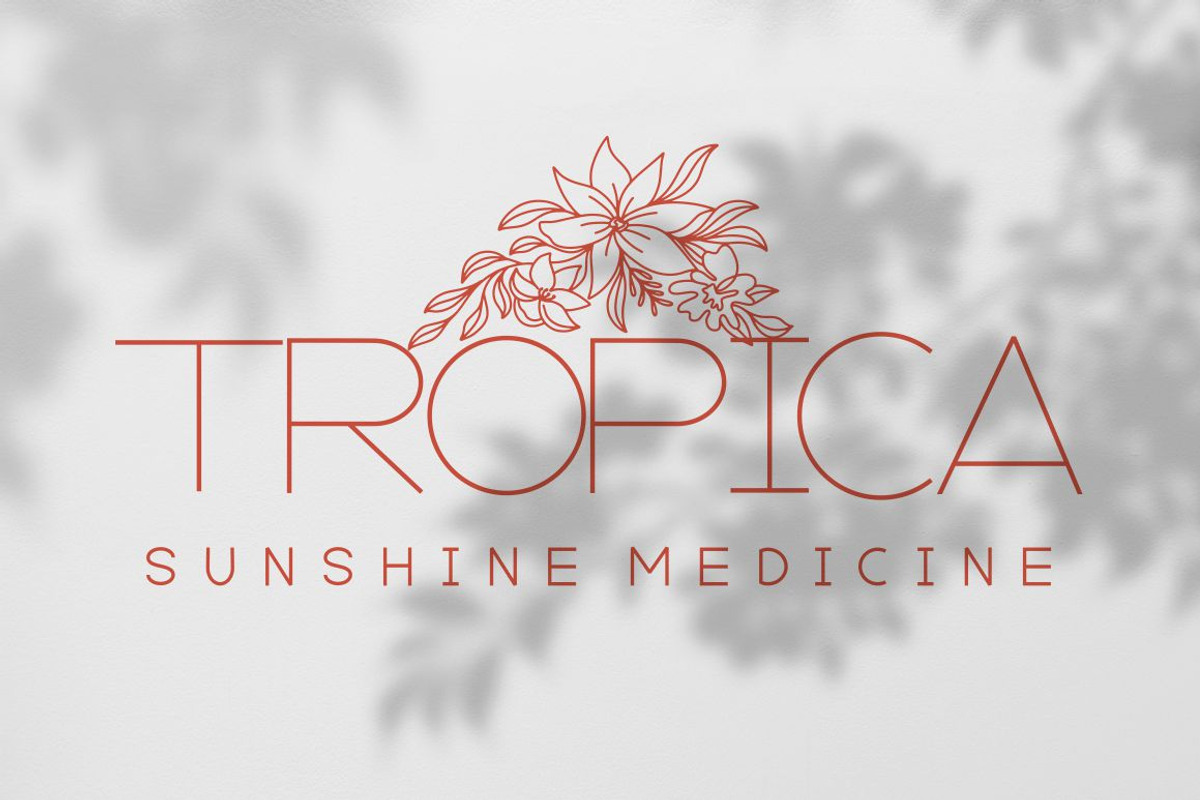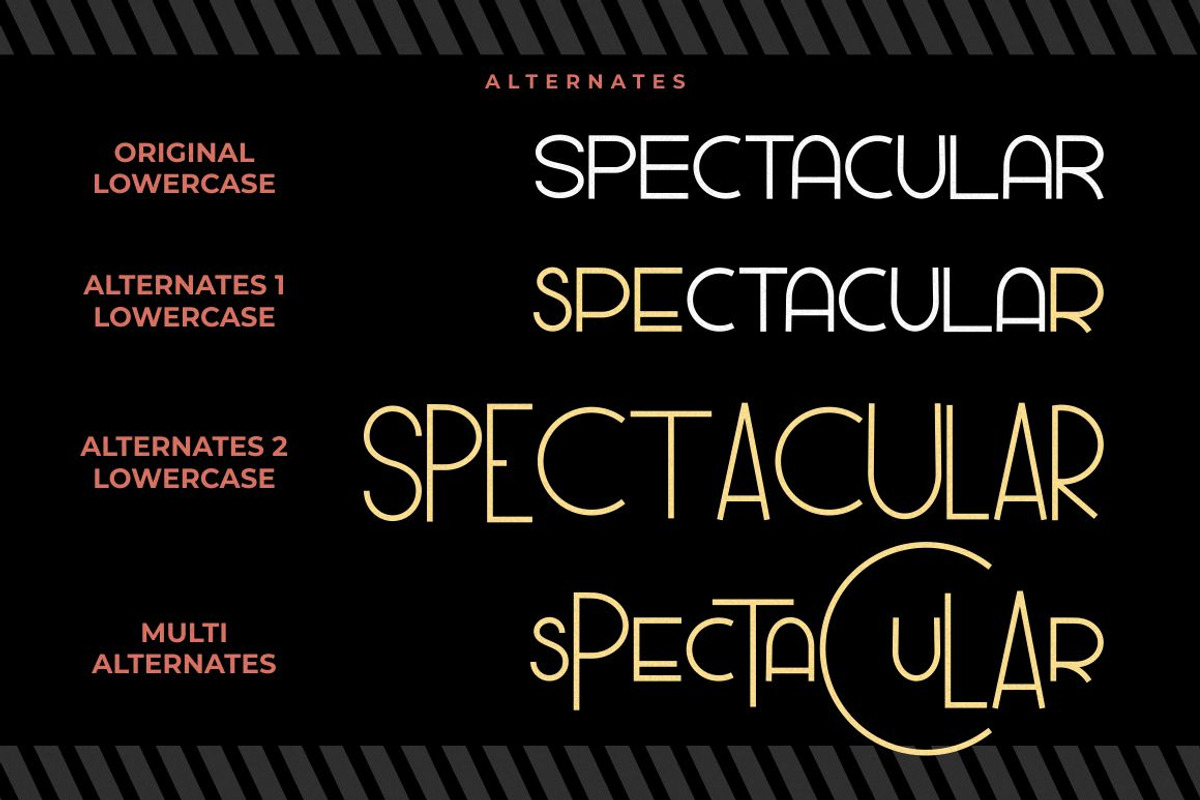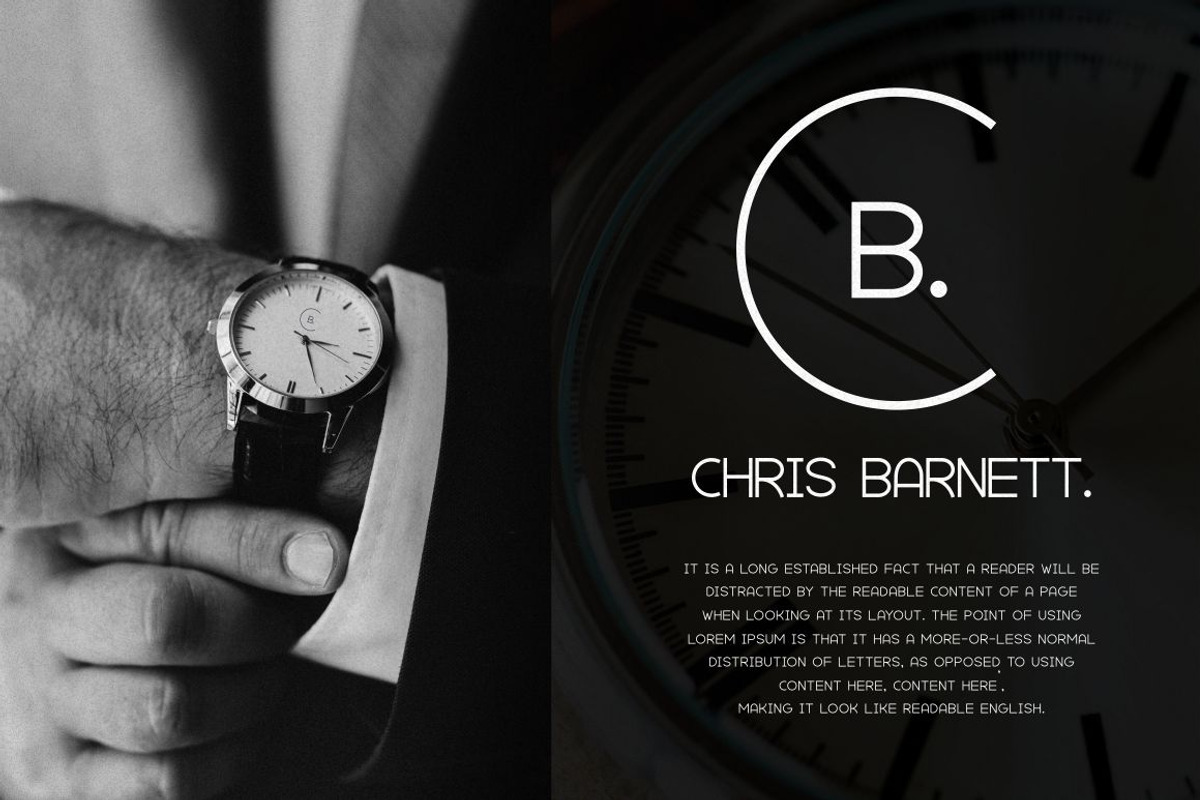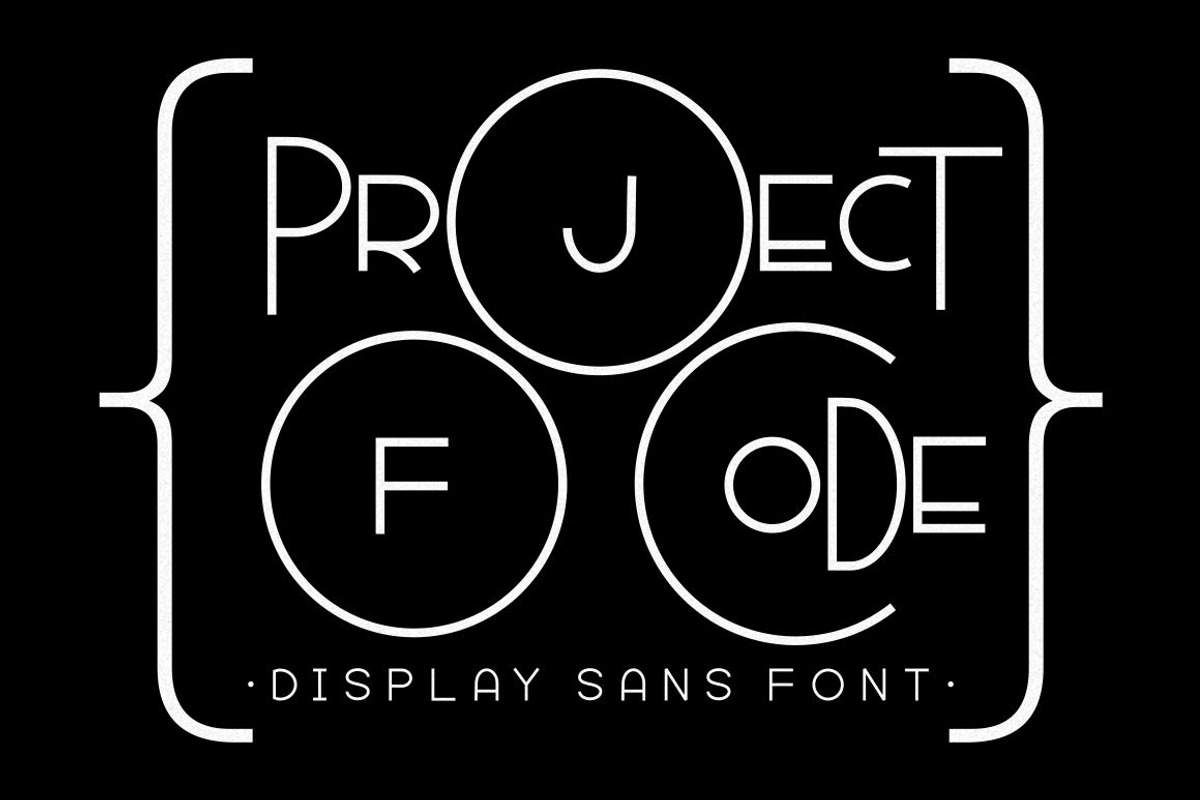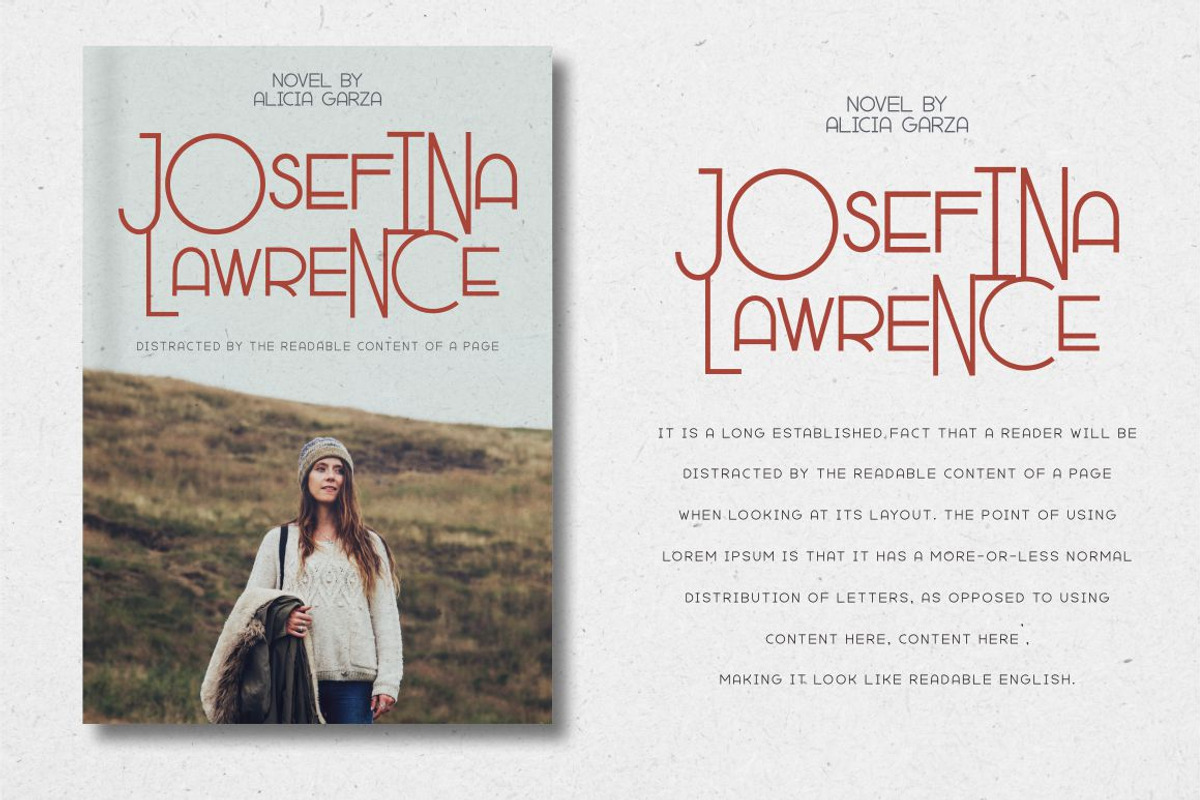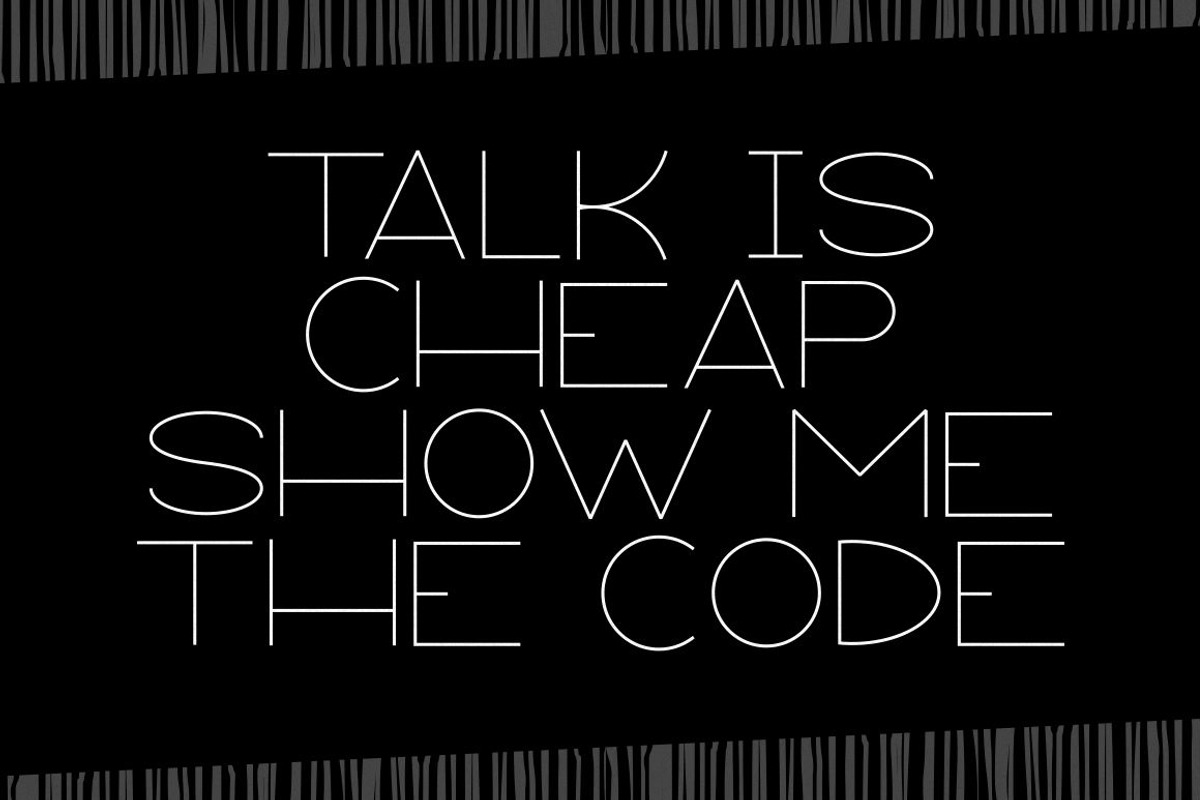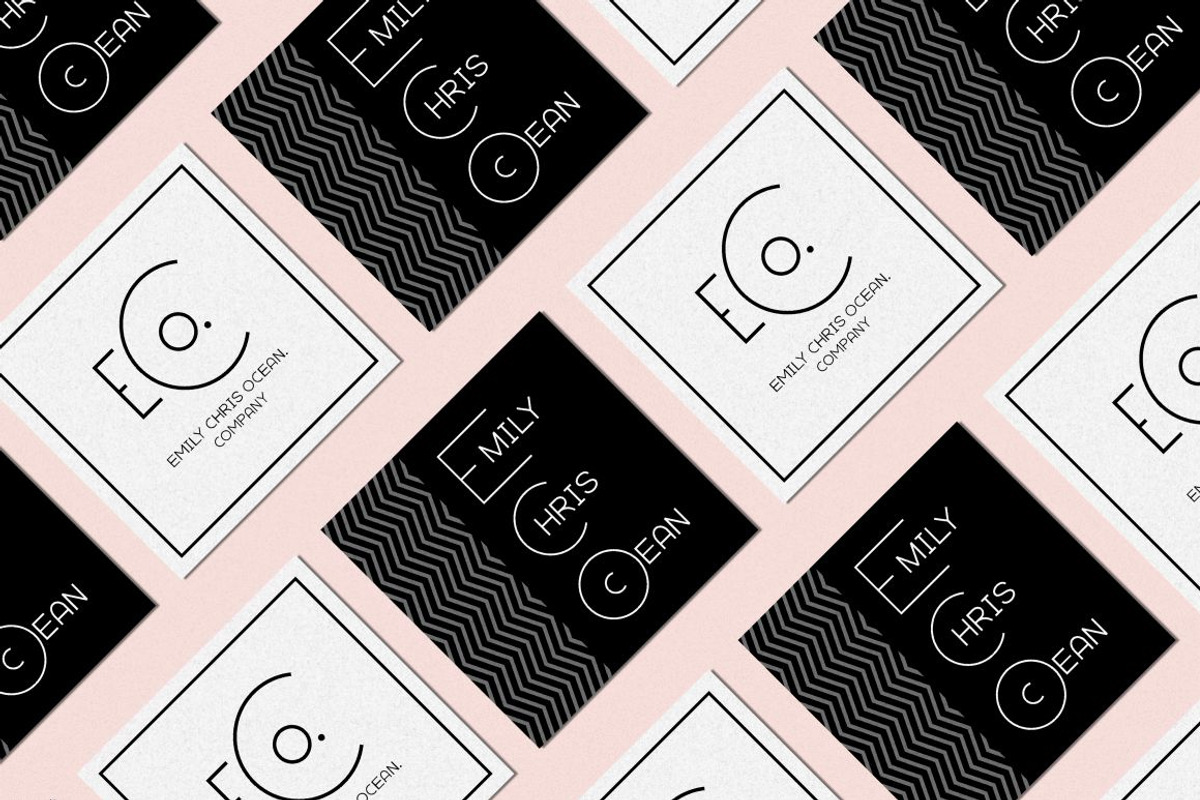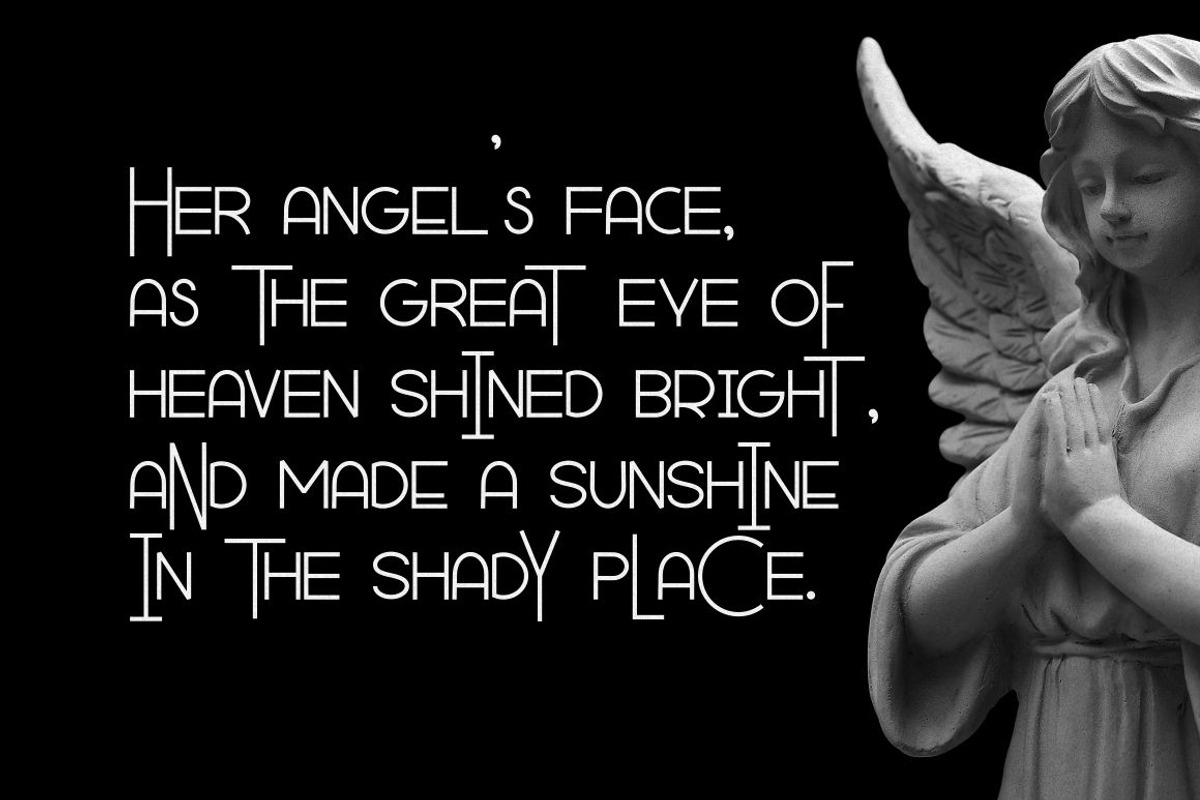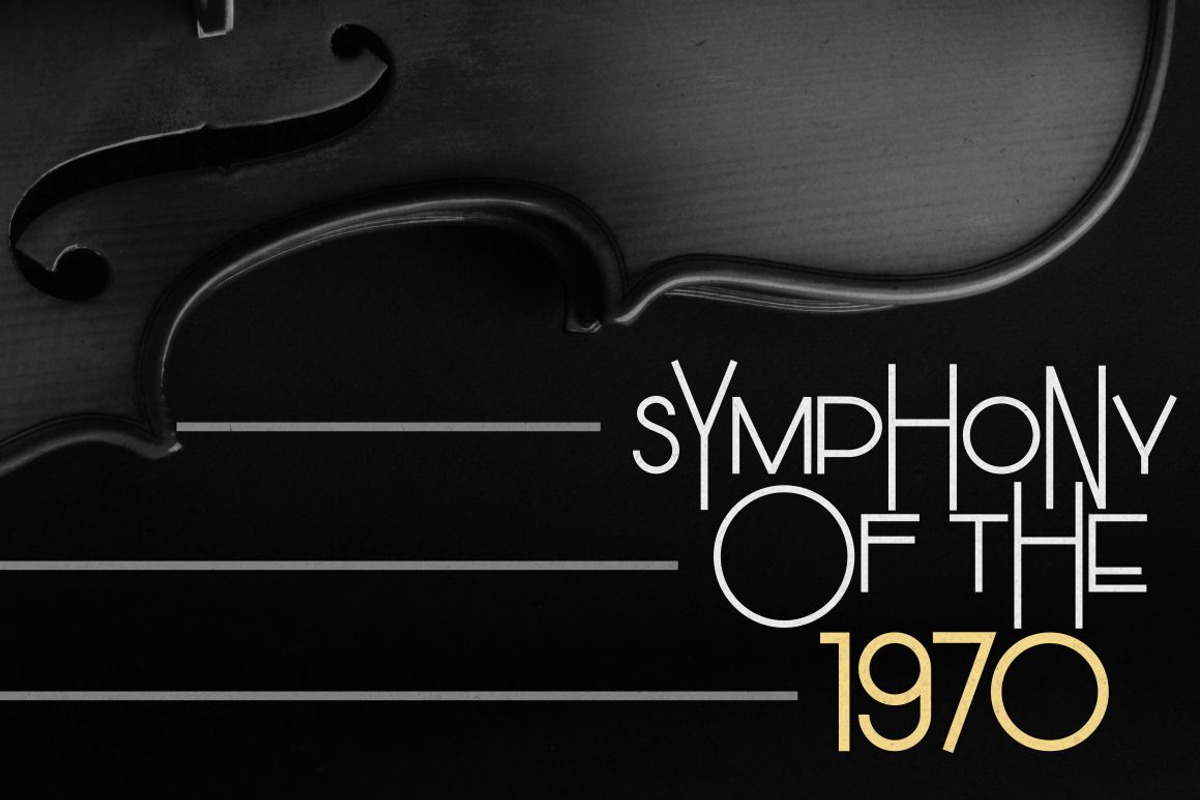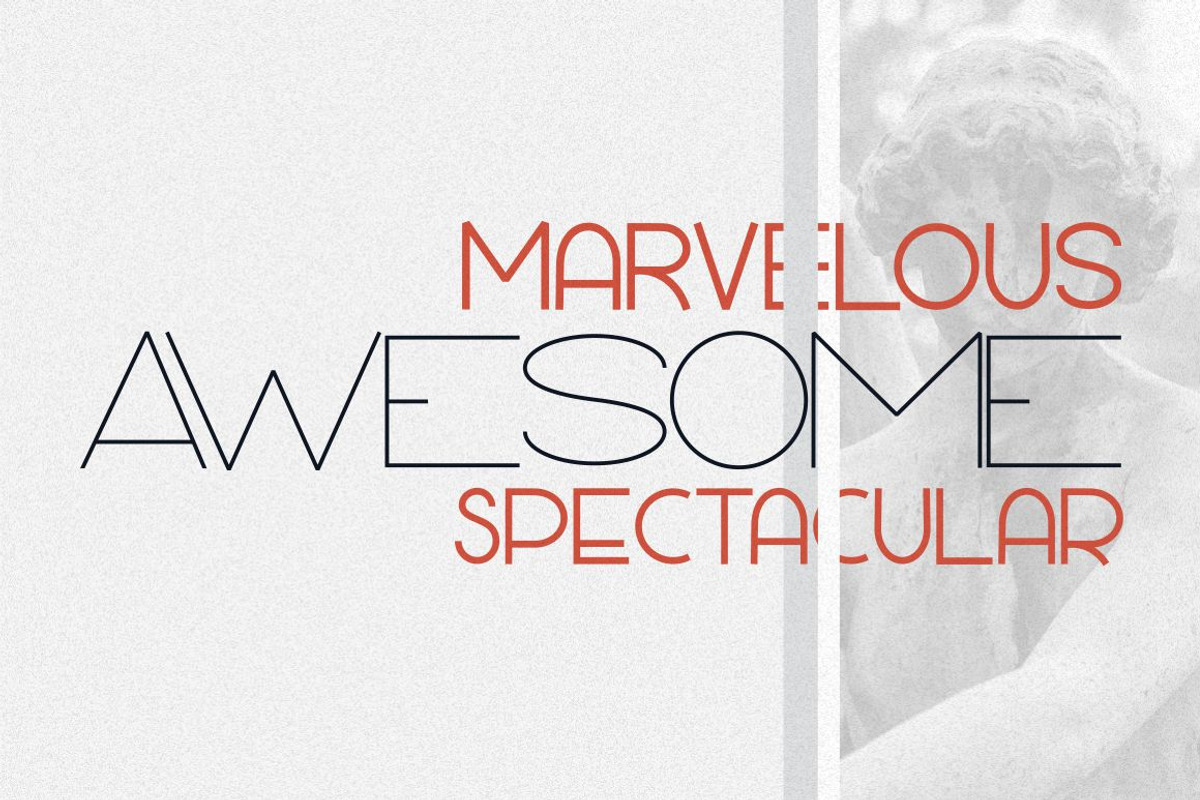
Project Of Code - Display Sans Font
Project Of Code - Display Sans Font. Project Of Code a contemporary, Display Sans inspired display typeface full of character, quirky ligatures, and glyphs to keep your designs fresh.
Project Of Code is a display font that we recommend using in the following types of work; magazines (titles and layouts), logos and branding, invitations, quotes, blog headers, posters, and advertising.